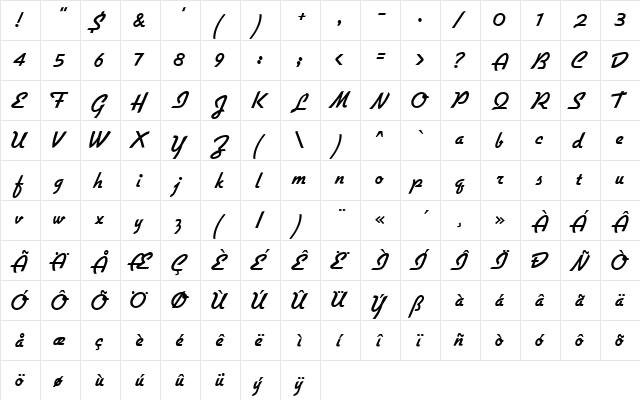
flottflott Regular
| Foundry | P. Wiegel |
Design Context for flottflott Typeface
flottflott is a composed and adaptable typeface that performs quietly and consistently across a wide range of design contexts.